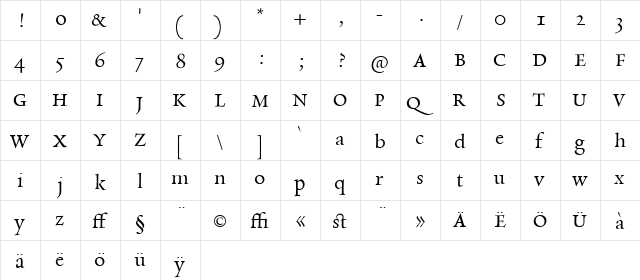
RialtoDF-Piccolo Regular Font Preview
RialtoDF-Piccolo Regular
Design Context for RialtoDF-Piccolo Typeface
RialtoDF-Piccolo is a composed and adaptable typeface that performs quietly and consistently across a wide range of design contexts.